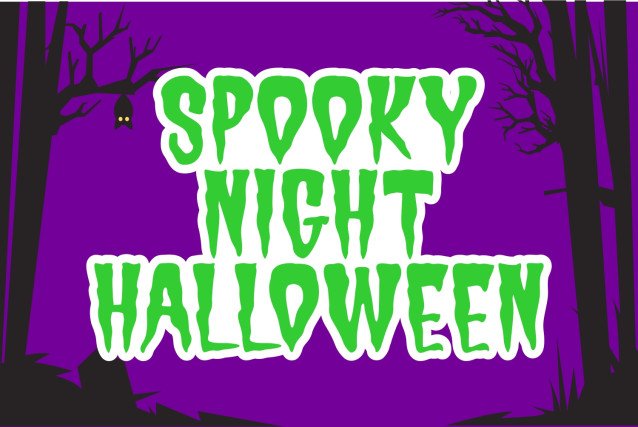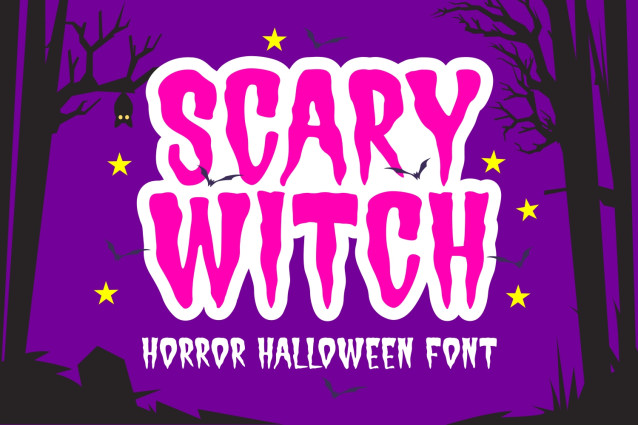
Scary Witch is a spine-chilling bold Halloween font designed to send shivers down your spine! With wavy letters, this terrifying font perfectly captures the essence of the ghosts. Use it for haunted house posters, eerie party invitations, or any Halloween-themed project to give your text a bone-chilling touch that will make your audience scream with delight!
Scary Witch Font
| Designer Name: | Dreamink Studio |